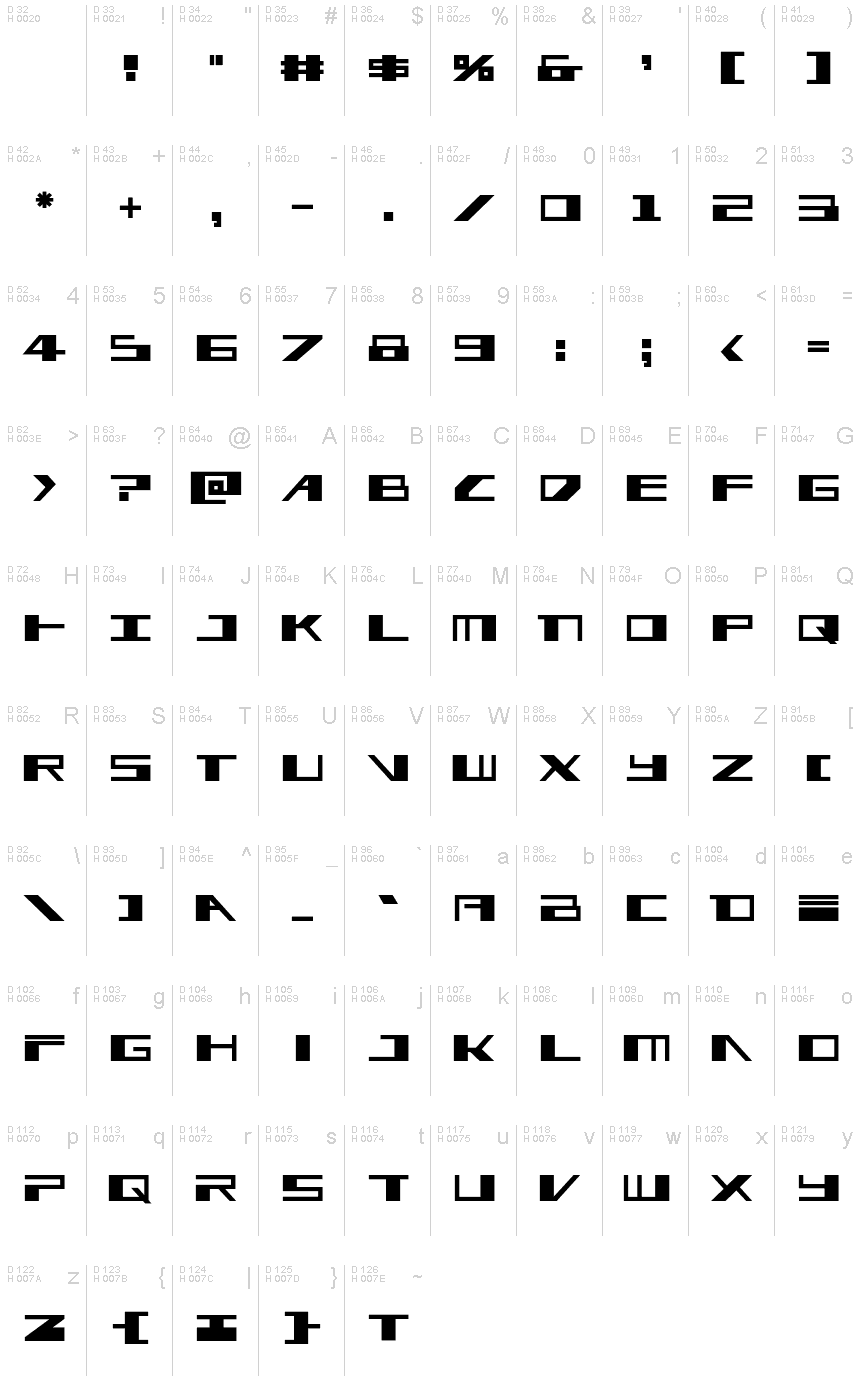
3AGLE Bold
3AGLE Bold, from the 3AGLE family by Iconian Fonts, is a display typeface that exudes futuristic flair with its extra-bold weight and extra-expanded width.
Tailor-made for head-turning impact, this font is an ideal choice for projects that demand a powerful statement—from innovative tech branding to sci-fi film titles. Its distinct style enhances visual storytelling, making it a versatile asset for designers seeking to infuse their work with a cutting-edge vibe.
Perfectly suited for both digital and print mediums, 3AGLE Bold stands out as the go-to font for creators aiming to leave an indelible mark on their audience.